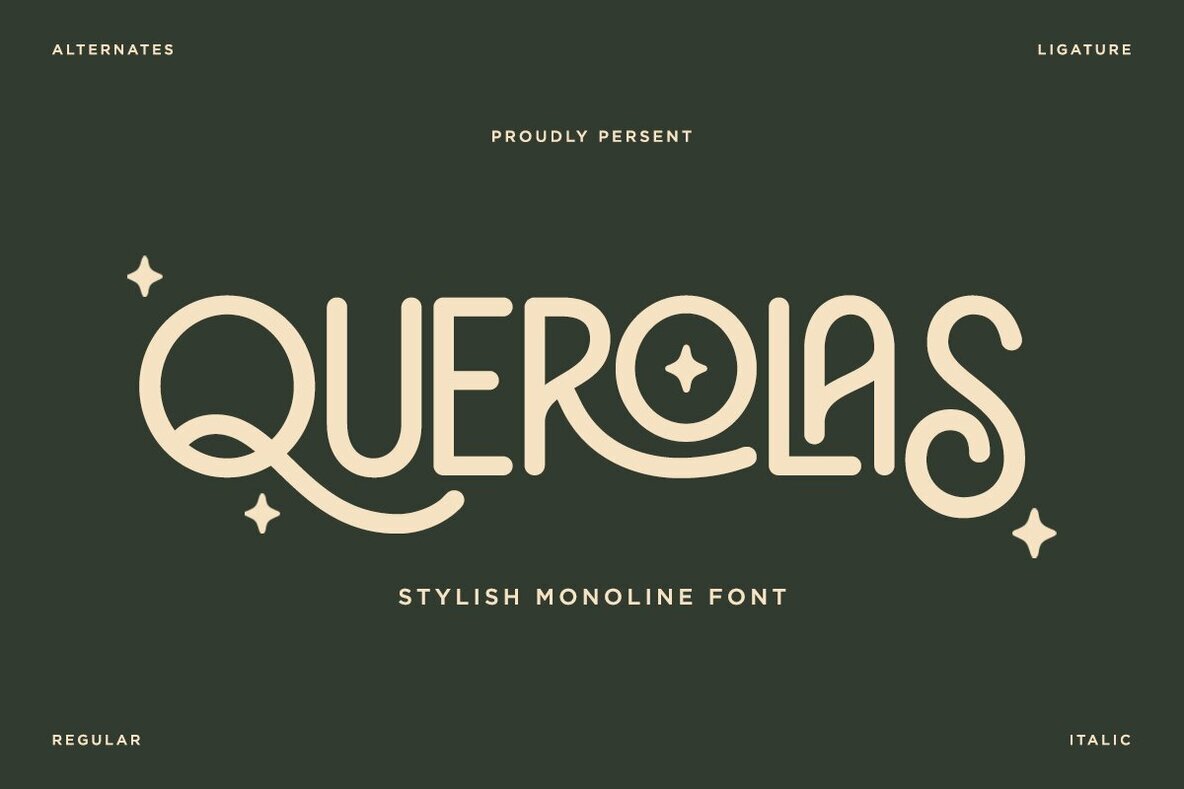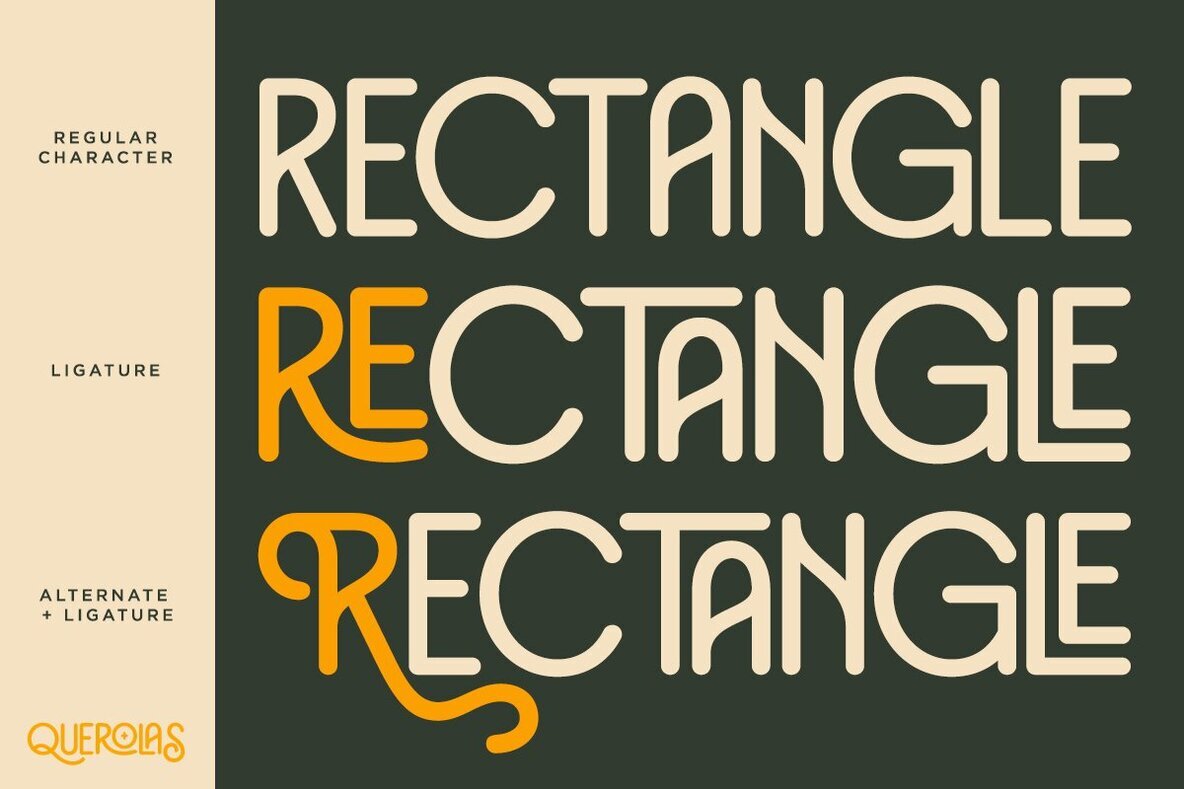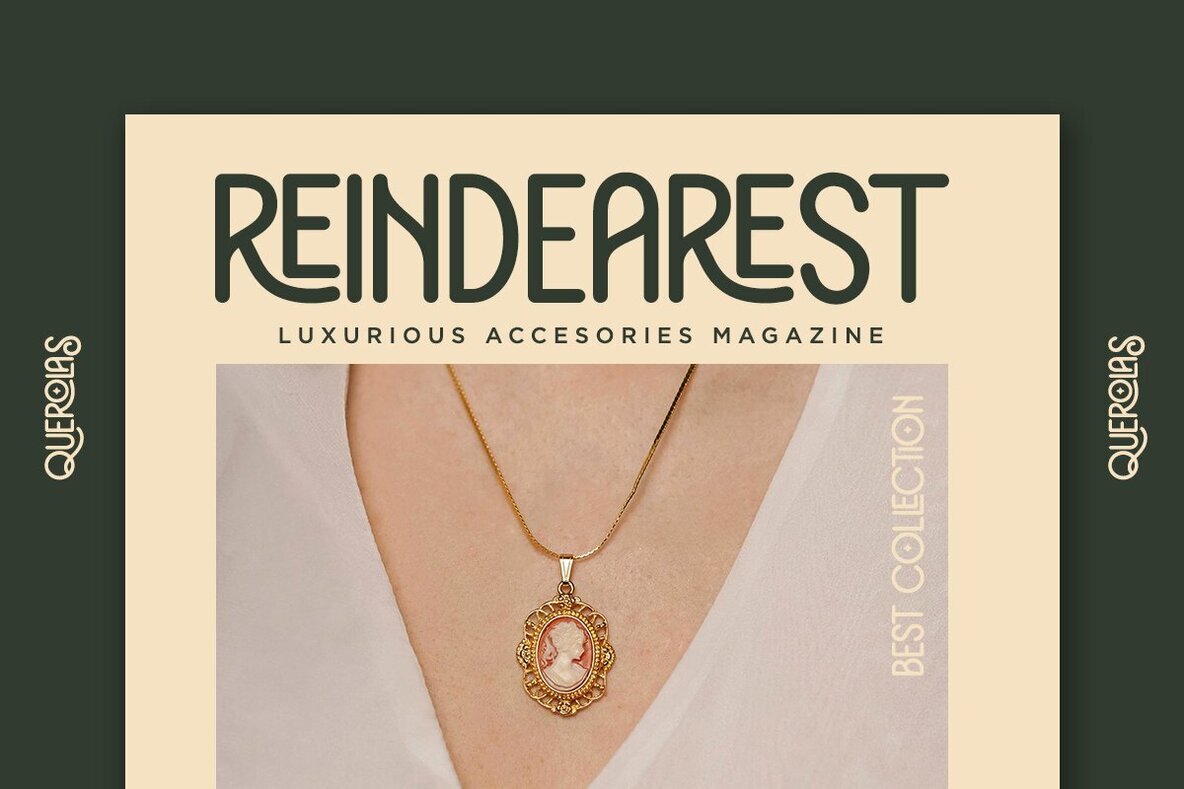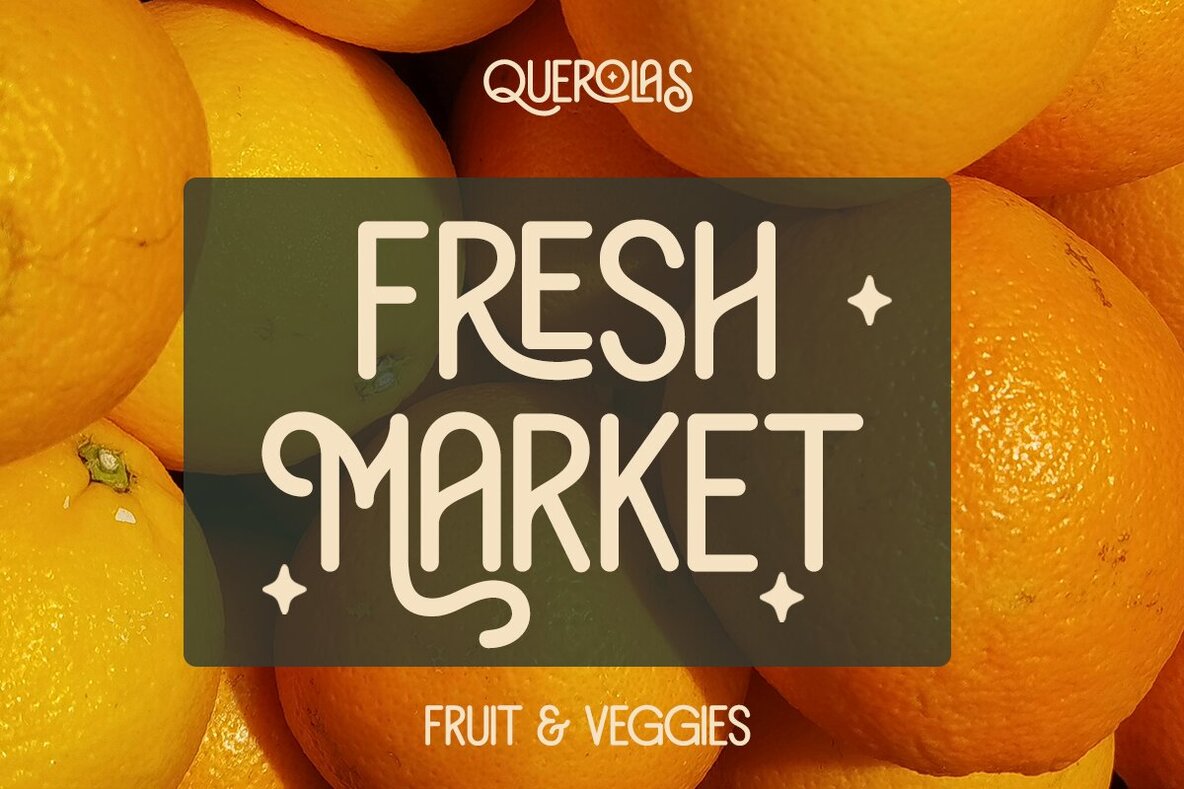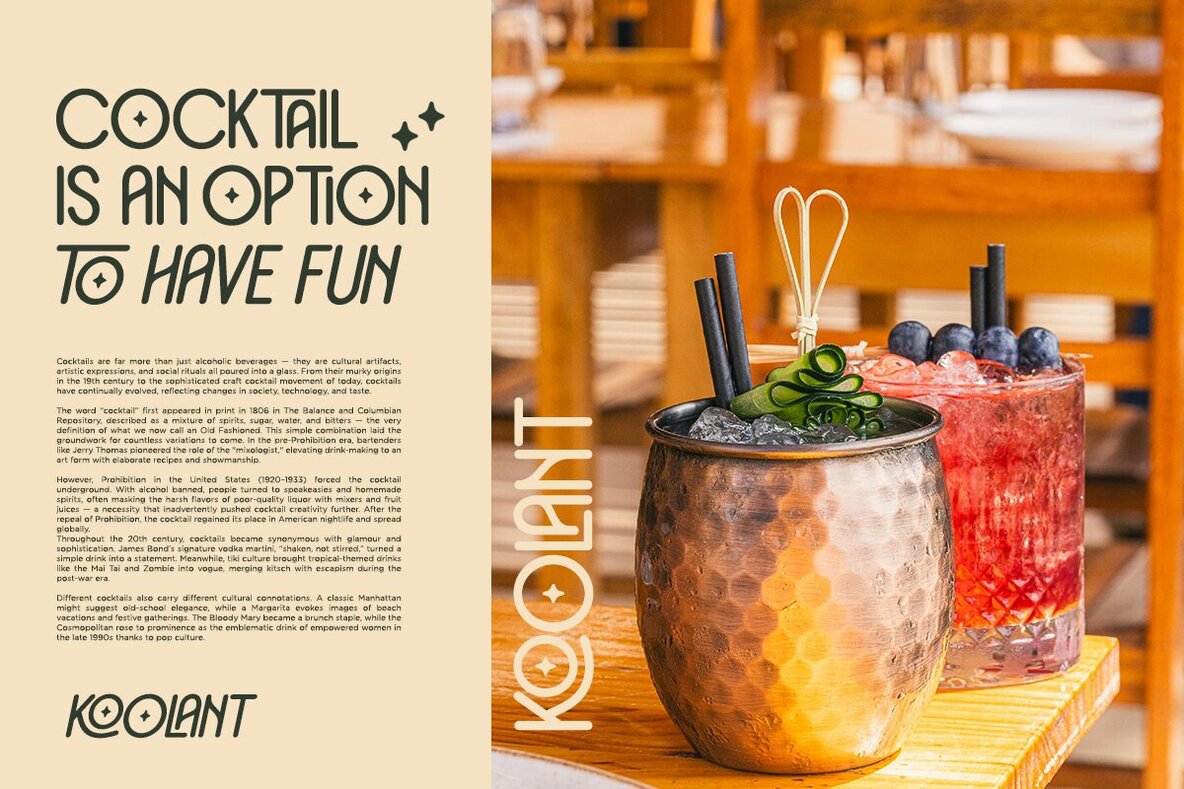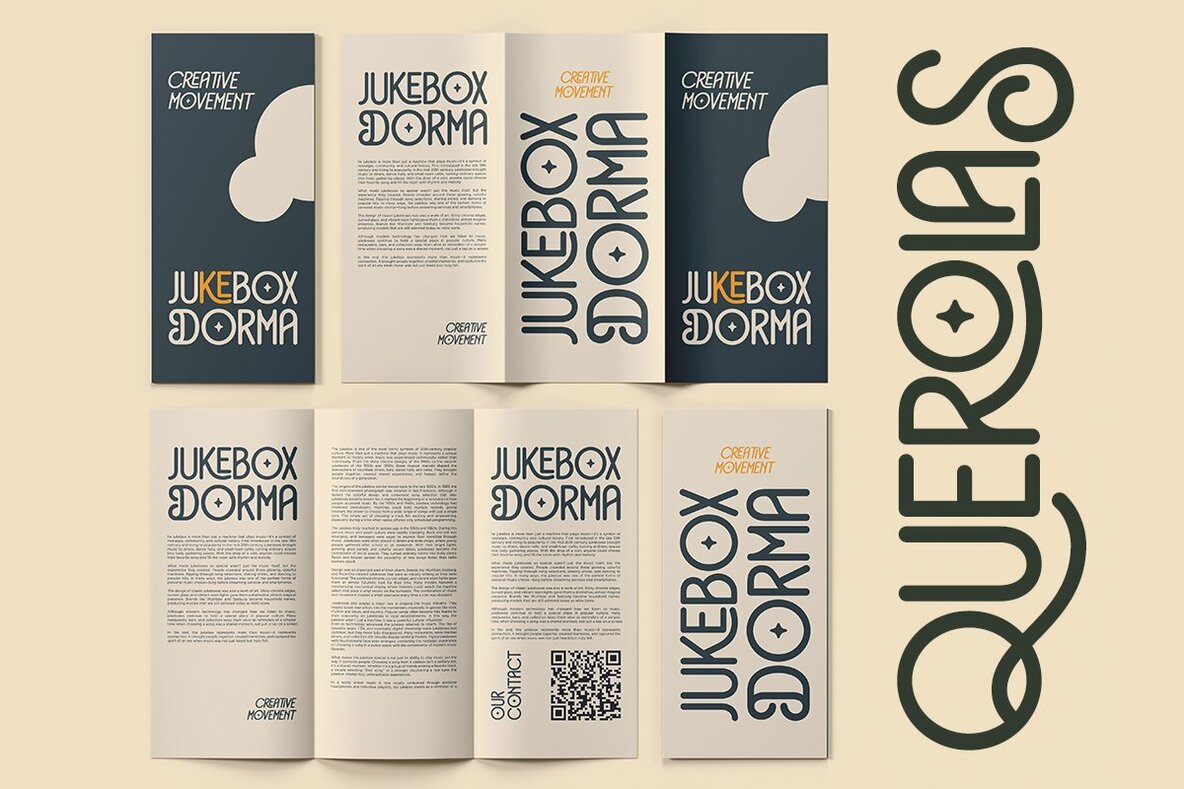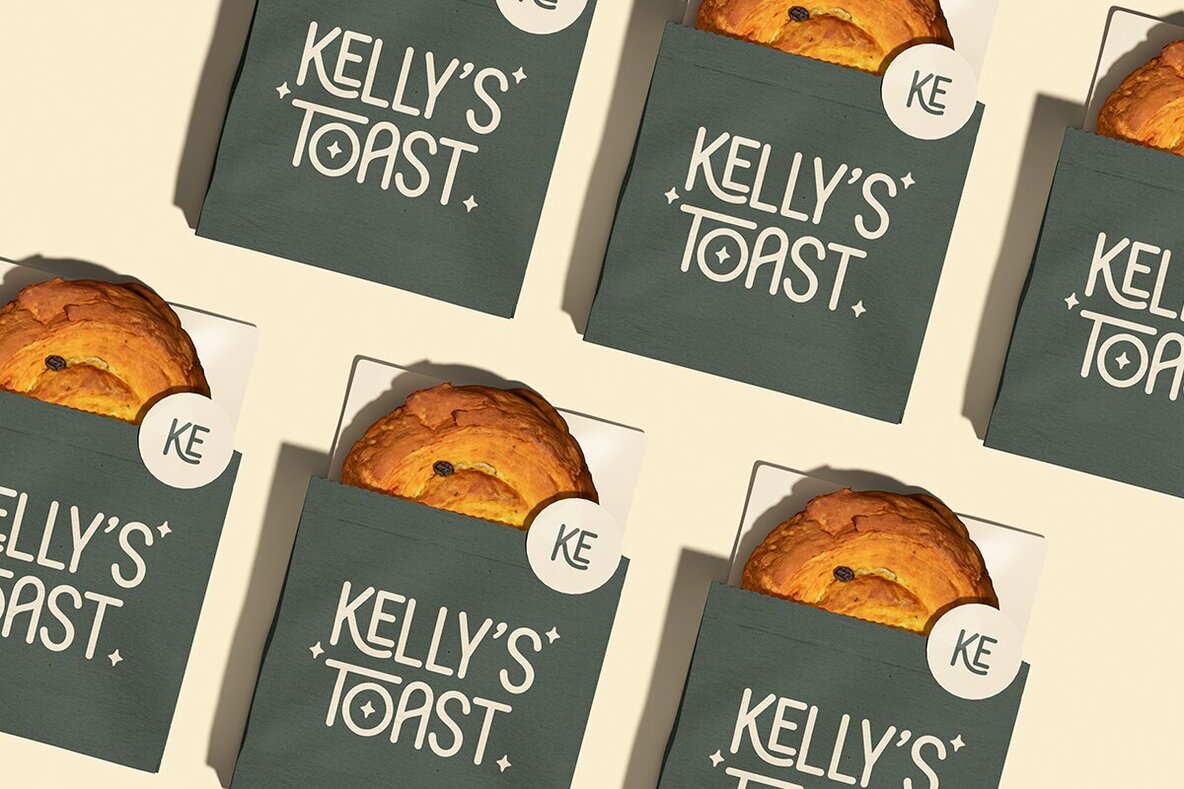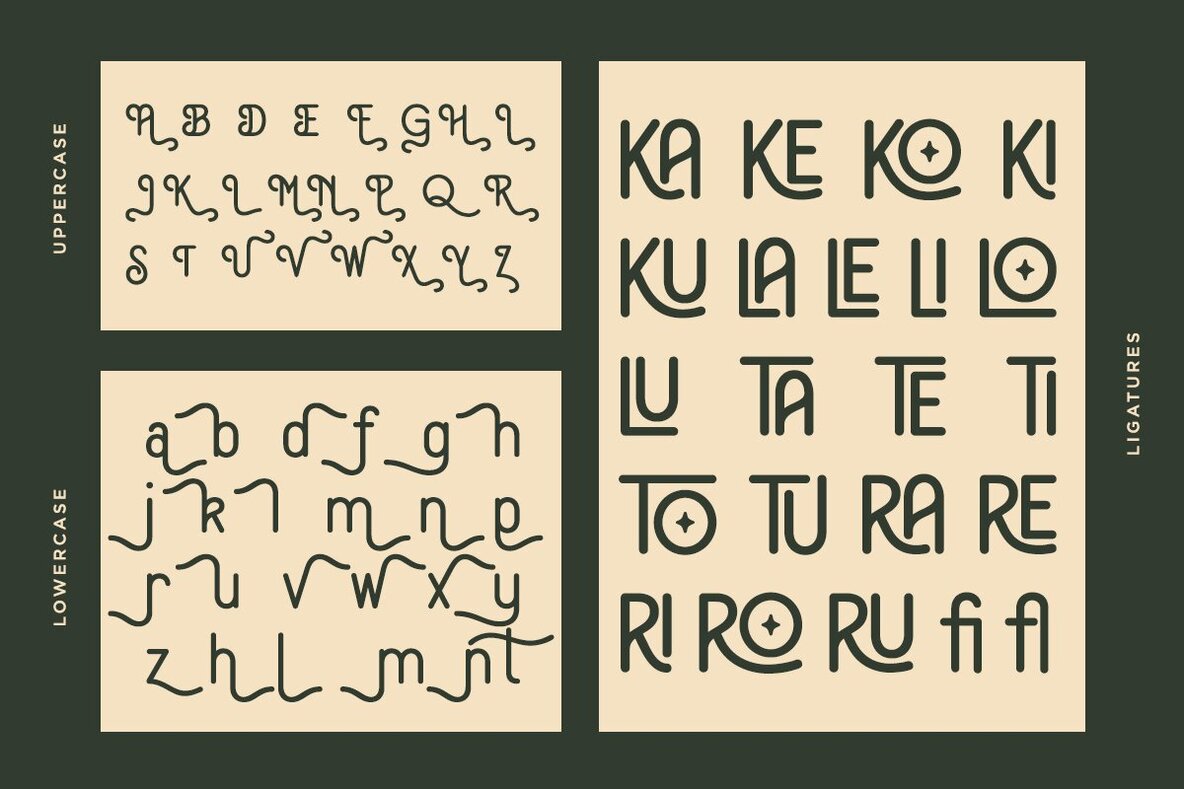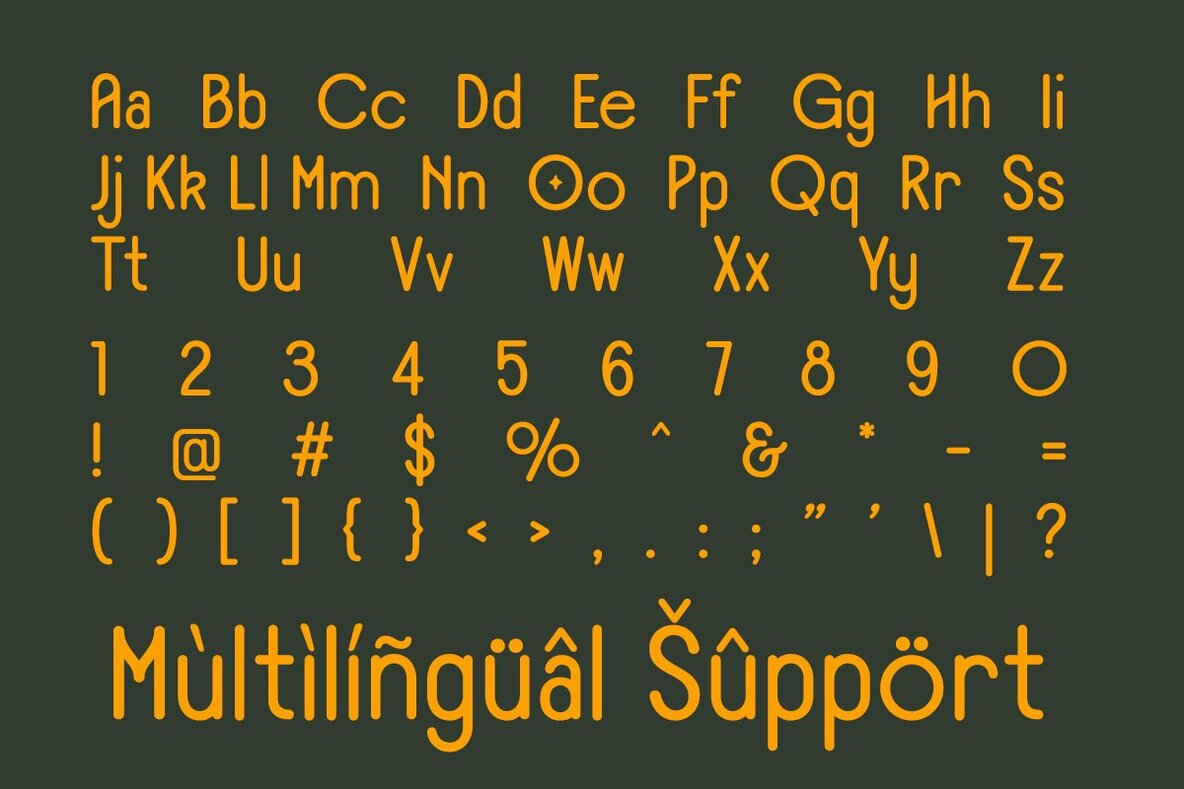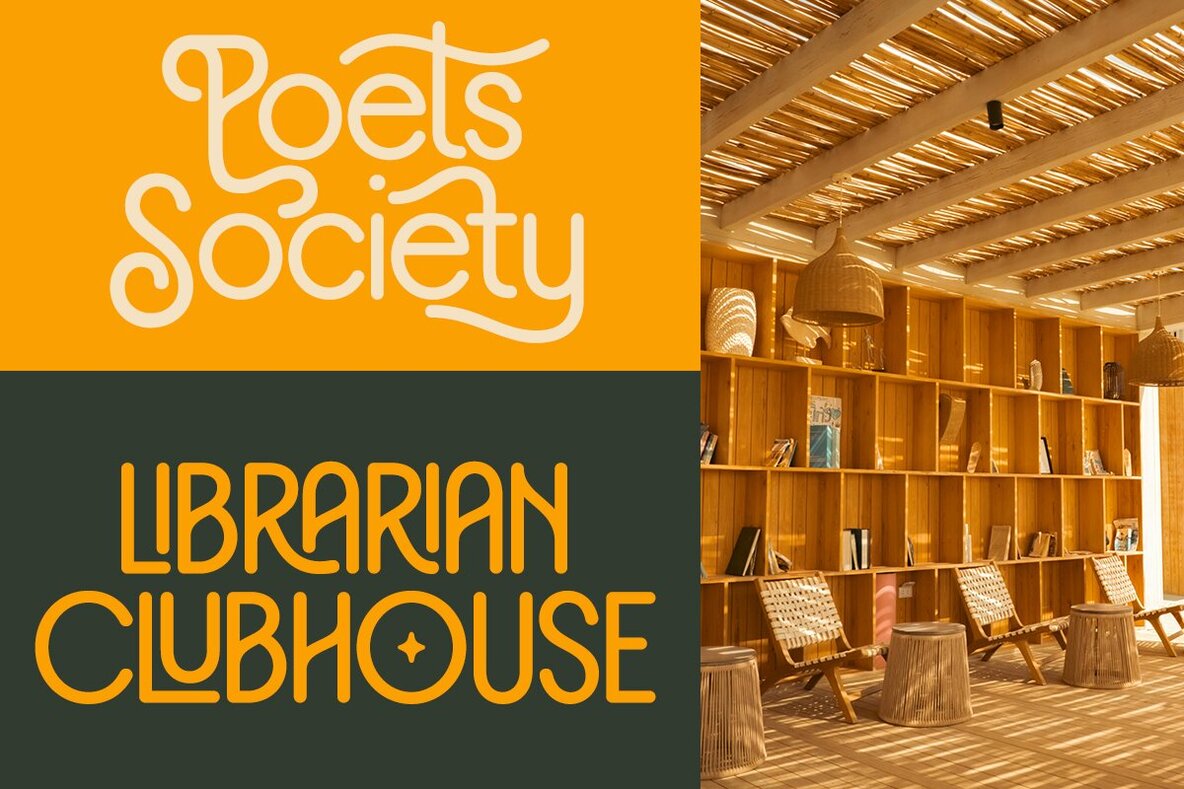
Querolas Font
Querolas combines a playful elegance with a monoline design, infusing projects with both retro flair and contemporary zest. Its smooth curves and balanced lines, accompanied by decorative alternates, endow any creation with personality and distinction. Querolas offers creative flexibility, making it ideal for diverse design needs. Whether for branding, retro posters, packaging, or social media, it provides a captivating visual impact.Querolas: Retro Charm with Modern Appeal